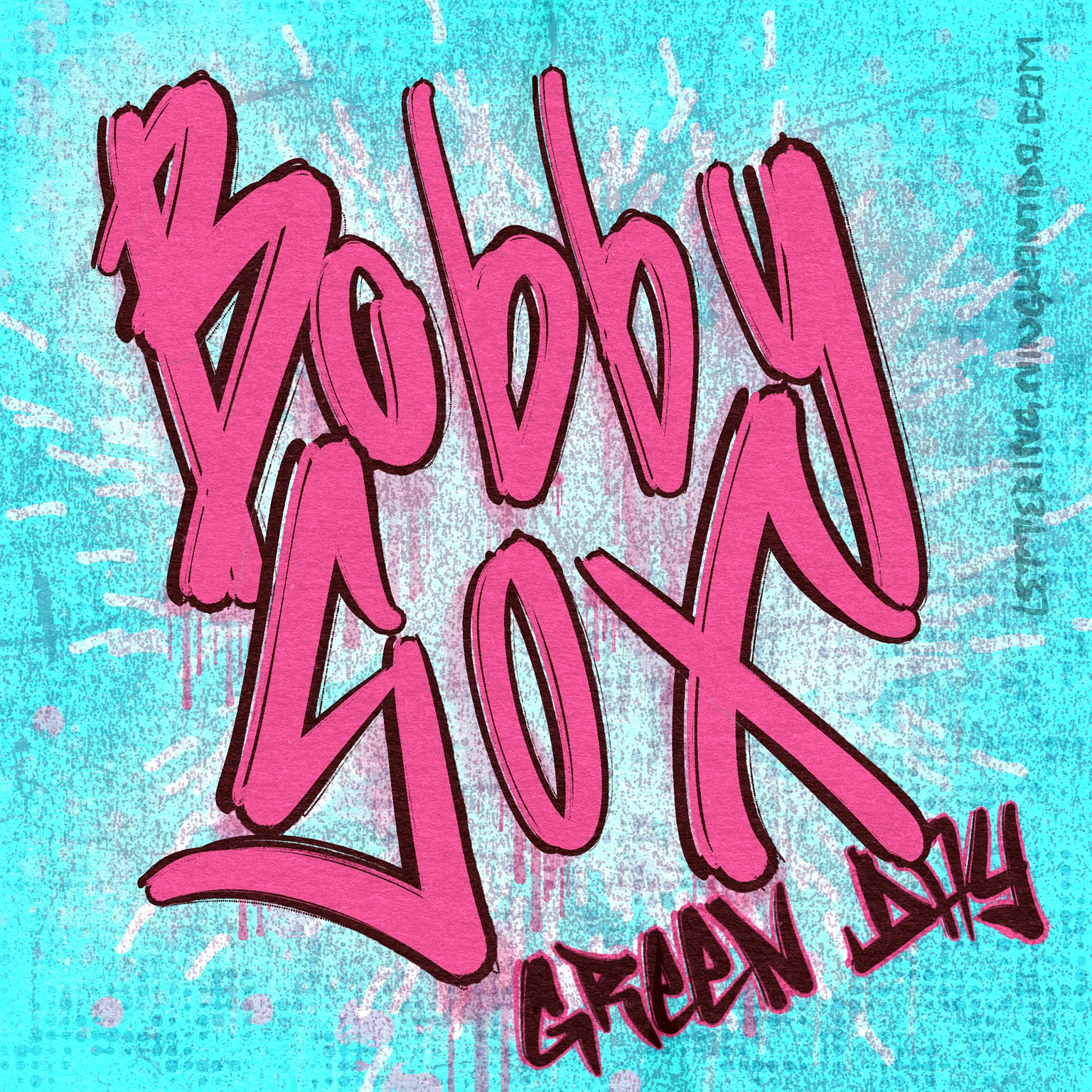
Pride Month Music 07-Bobby Sox by Green Day
As we approach the end of Pride Month, I’m creating lettering pieces celebrating music related to LGBTQIA+ community. My goal is to expose people to good music and artists while also help bringing the community filled with diversity together, since music is like a universal language that can touch anyone’s heart.
Bobby Sox is the song that kicked off this Pride Month Music project. As I was listening to it, I immediately felt inspired to create lettering that matched the energy of this badass track. The song is incredibly catchy yet intriguingly unique.Ā
What makes Bobby Sox special is its universal vibe—a shared celebration for the entire community. It’s the kind of song that makes you nod your head and sing along effortlessly to the rhythm. It definitely deserves a spot on any LGBTQIA+ anthem playlist.
For the lettering, I aimed for a mix of punk and street art styles that’s so vibrant, it’s impossible to think of anything but a fun time.
Bobby Sox by Green Day